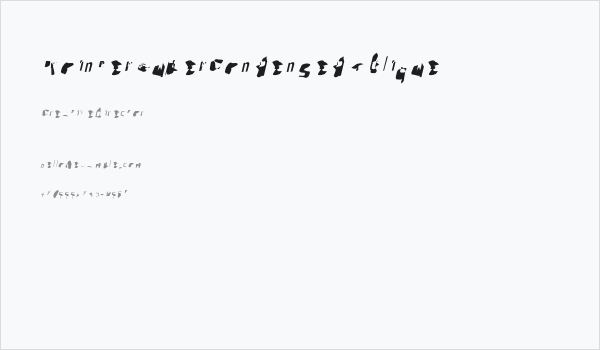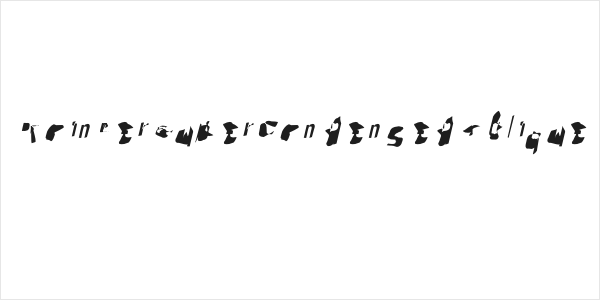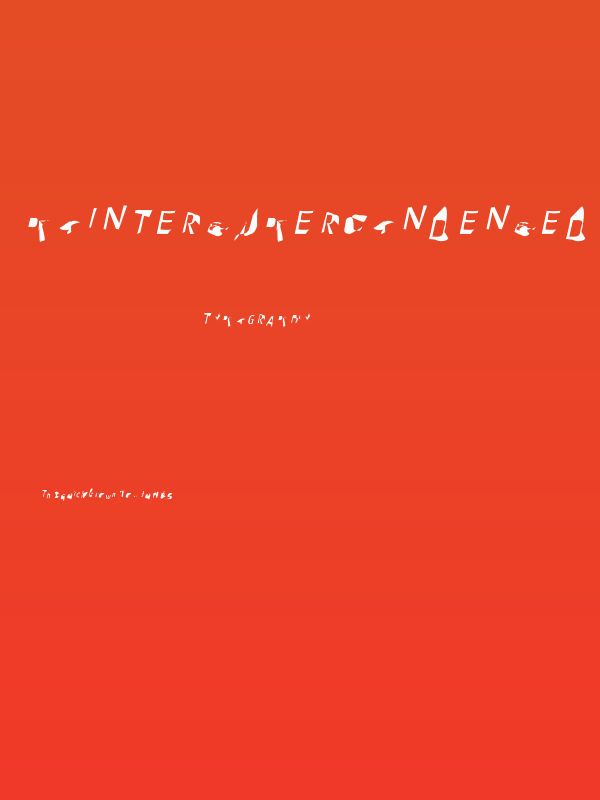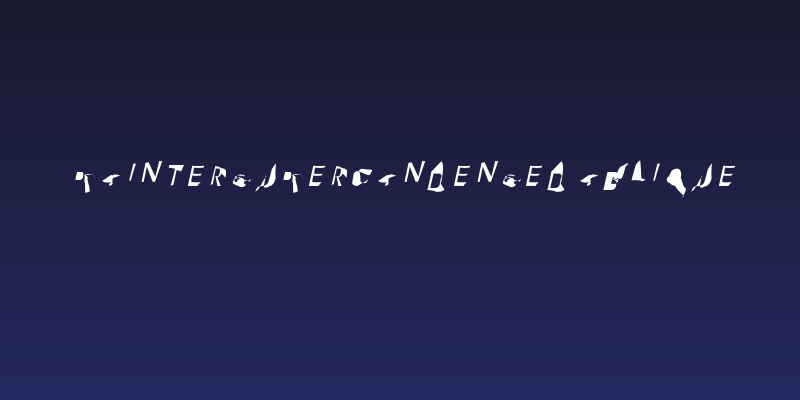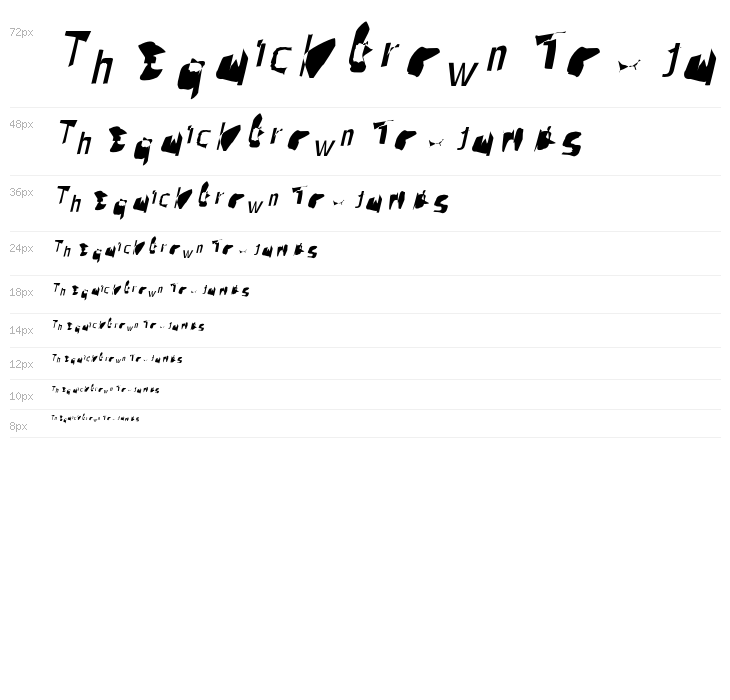
Pointer SuperCondensed Oblique Font
Pointer SuperCondensed Oblique Description
This font exhibits a highly stylized and abstract design, characterized by its extreme condensation and oblique orientation. The letters are fragmented and distorted, creating a dynamic and edgy appearance. The strokes are bold and irregular, with sharp angles and varying thicknesses that contribute to a sense of movement and energy. The overall aesthetic is modern and avant-garde, making it suitable for projects that require a distinctive and unconventional look. The characters are tightly spaced, enhancing the compact and intense visual impact.
| Overall Style | Modern, Avant-garde |
| Proposed Projects | Ideal for experimental design projects, edgy branding, album covers, and modern art installations. |